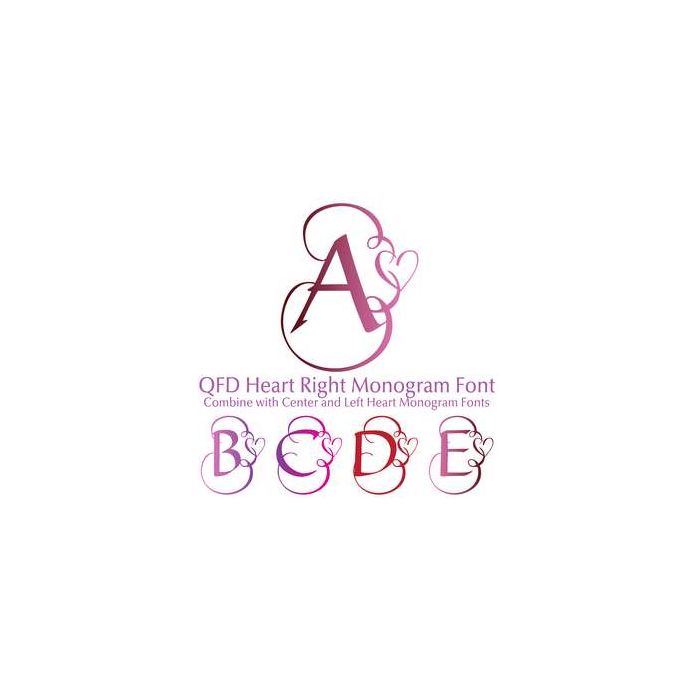
Perfect for weddings, cards, wall art, t-shirts, mugs, pillows and anything else you can think of. This font is designed to combine with Heart Left and Heart Center Flourished fonts to create a 3-Letter Monogram. See our detailed tutorial for constructing the 3 Letter Monograms by clicking the Instructions button. If you have any questions, please feel free to contact me!